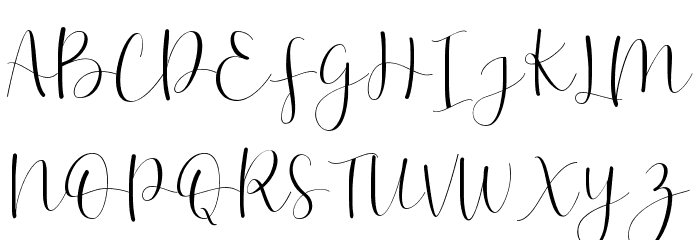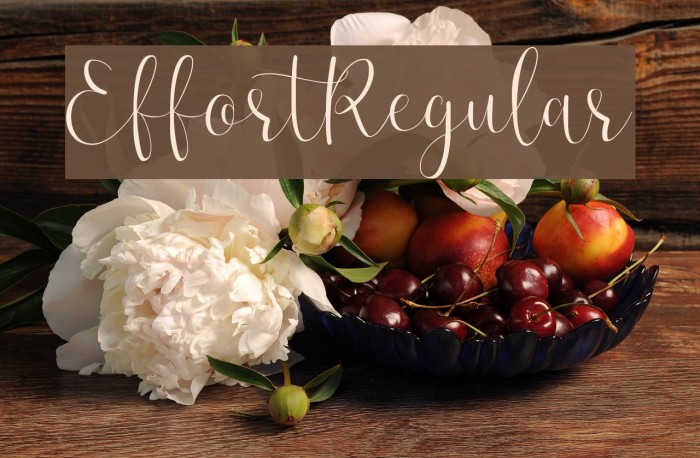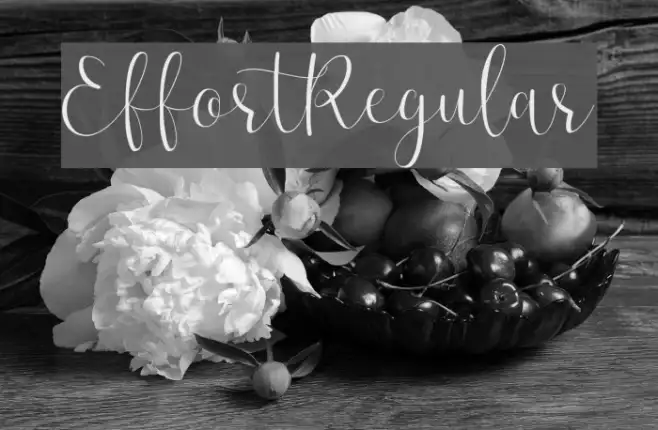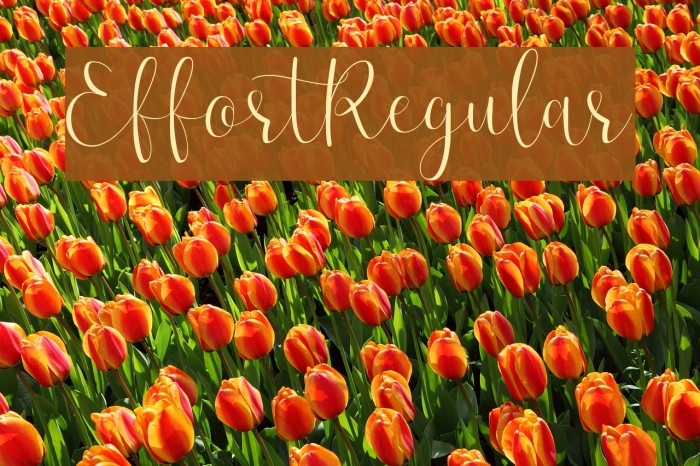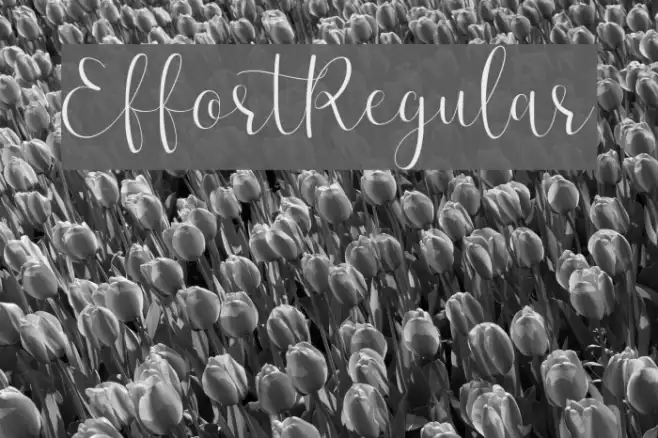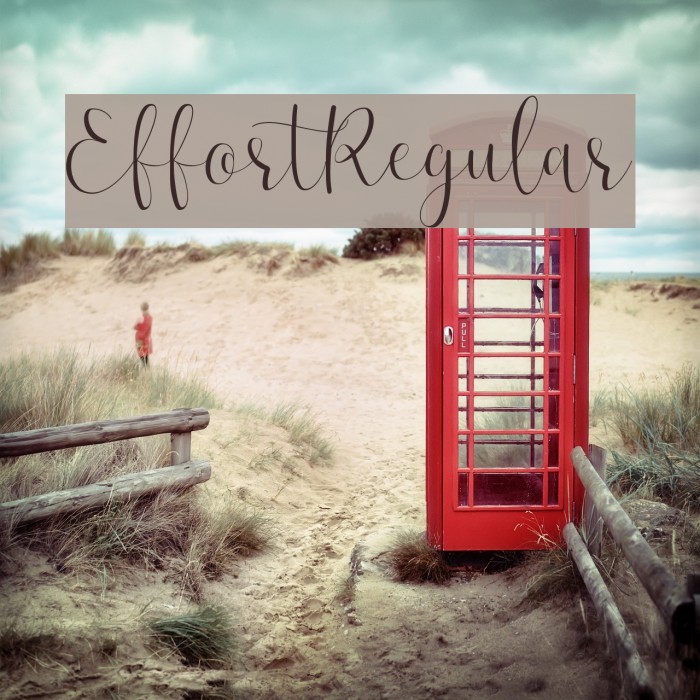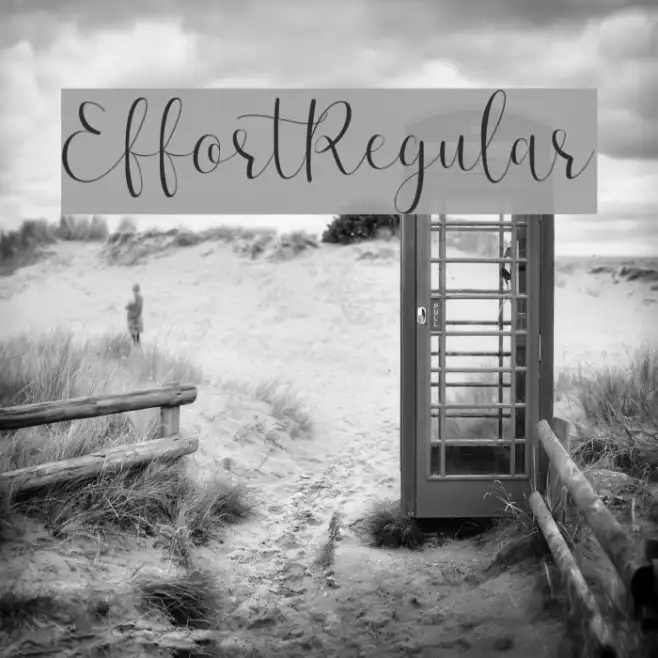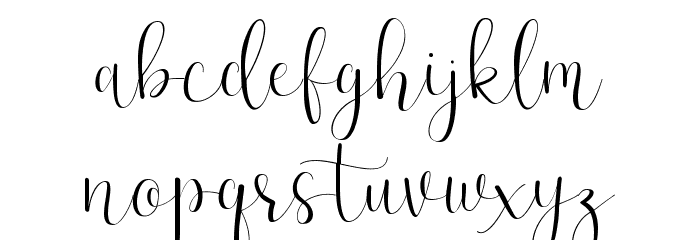
Effort-Regular Font
Effort-Regular Description
This font exhibits a flowing, elegant script style with a modern twist. The characters are connected with smooth, sweeping strokes that give it a handwritten appearance. The uppercase letters are tall and graceful, while the lowercase letters maintain a consistent flow with delicate loops and curves. The overall design is airy and light, with a playful yet sophisticated feel. The font's thin lines and gentle curves make it suitable for projects that require a touch of elegance and personality. It is versatile enough to be used in various design contexts, from invitations to branding materials.
| Use Case | Logos, Invitations, Decorative text |
| Proposed Projects | Ideal for wedding invitations, greeting cards, branding, and logo design. |